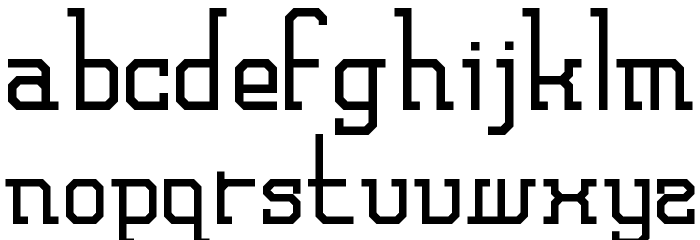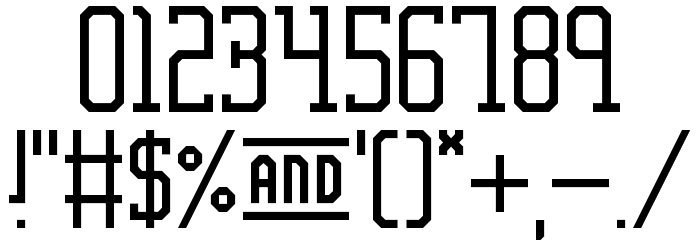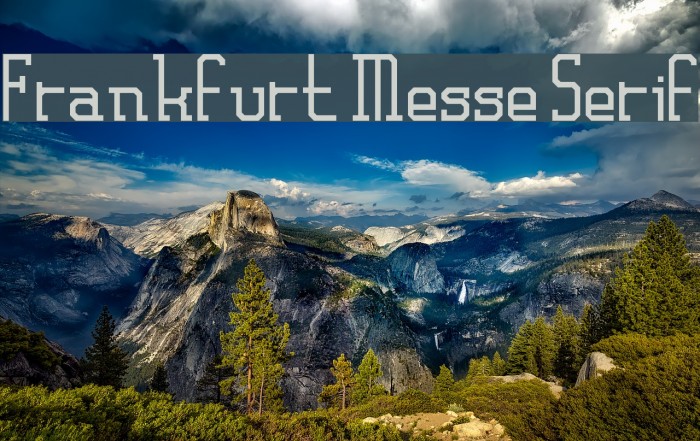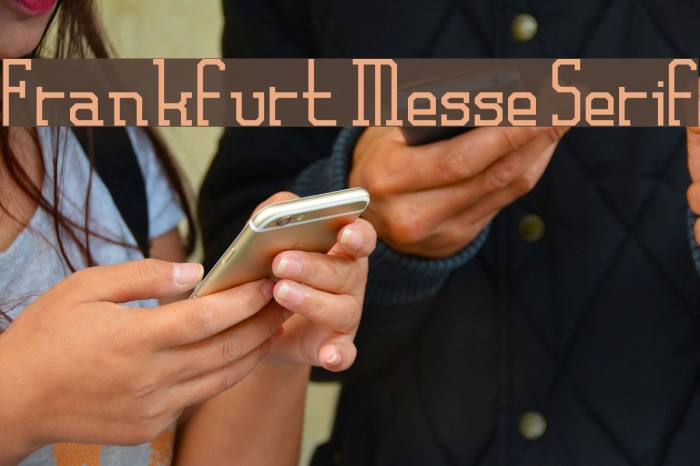
Frankfurt Messe Serif Font
This font features a bold and structured design with a distinct serif style. The characters are tall and narrow, with sharp edges and a geometric influence. The uppercase letters are uniform in height, while the lowercase letters maintain a consistent baseline with slight variations in ascender and descender lengths. Numbers are clear and legible, matching the overall height of the uppercase letters. Special characters are well-integrated, maintaining the font's cohesive look. The font's design is reminiscent of classic serif styles but with a modern twist, making it suitable for both traditional and contemporary applications.
A bold, structured serif font with a geometric influence.